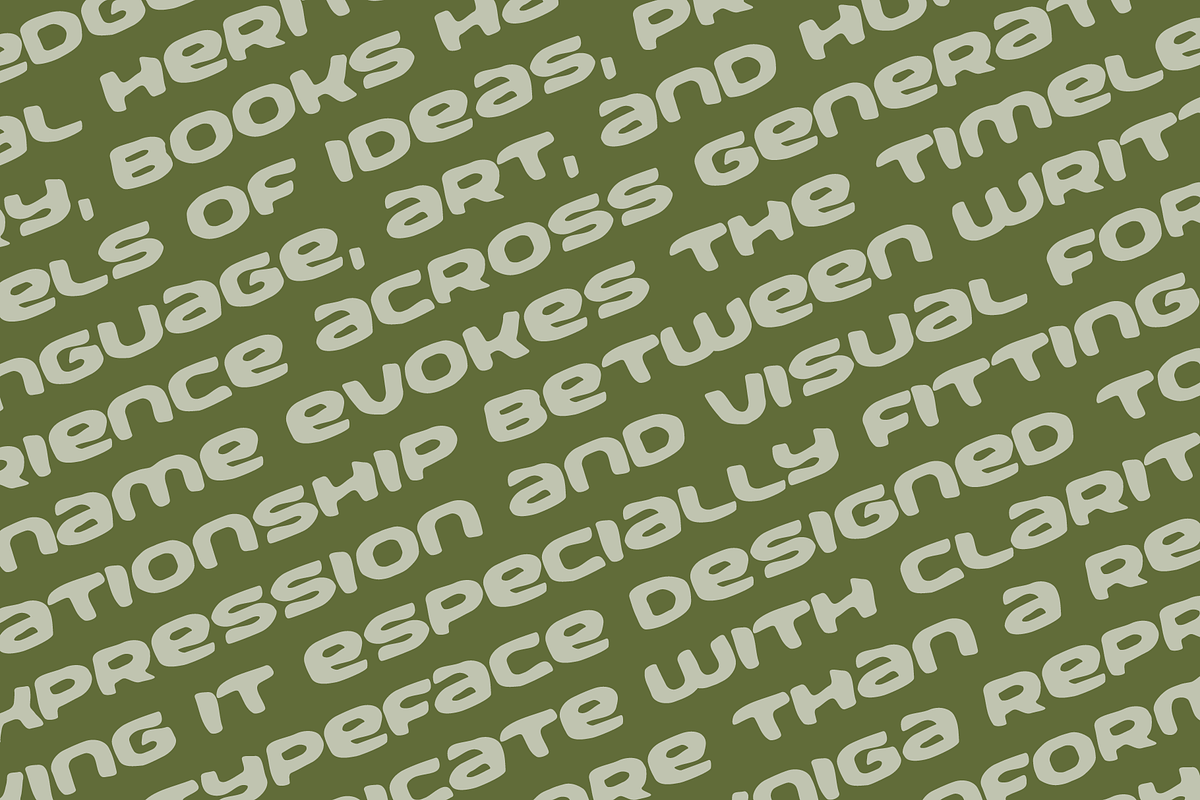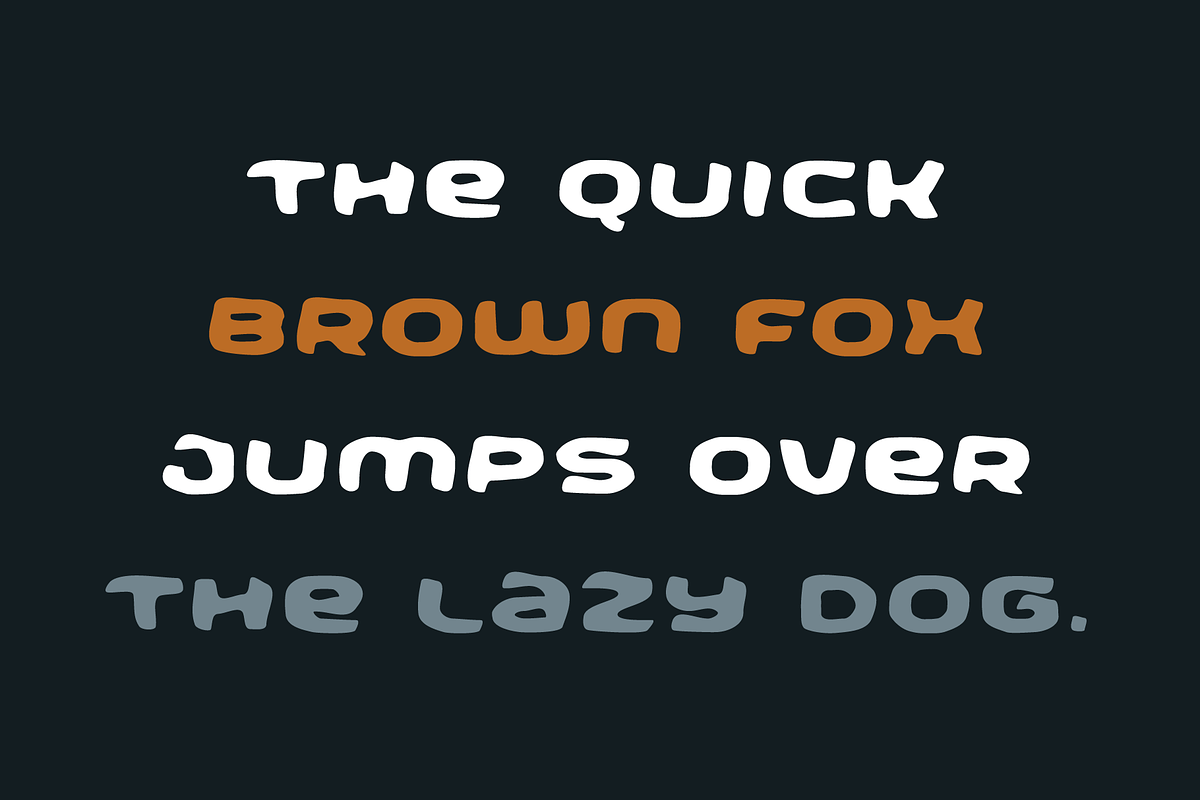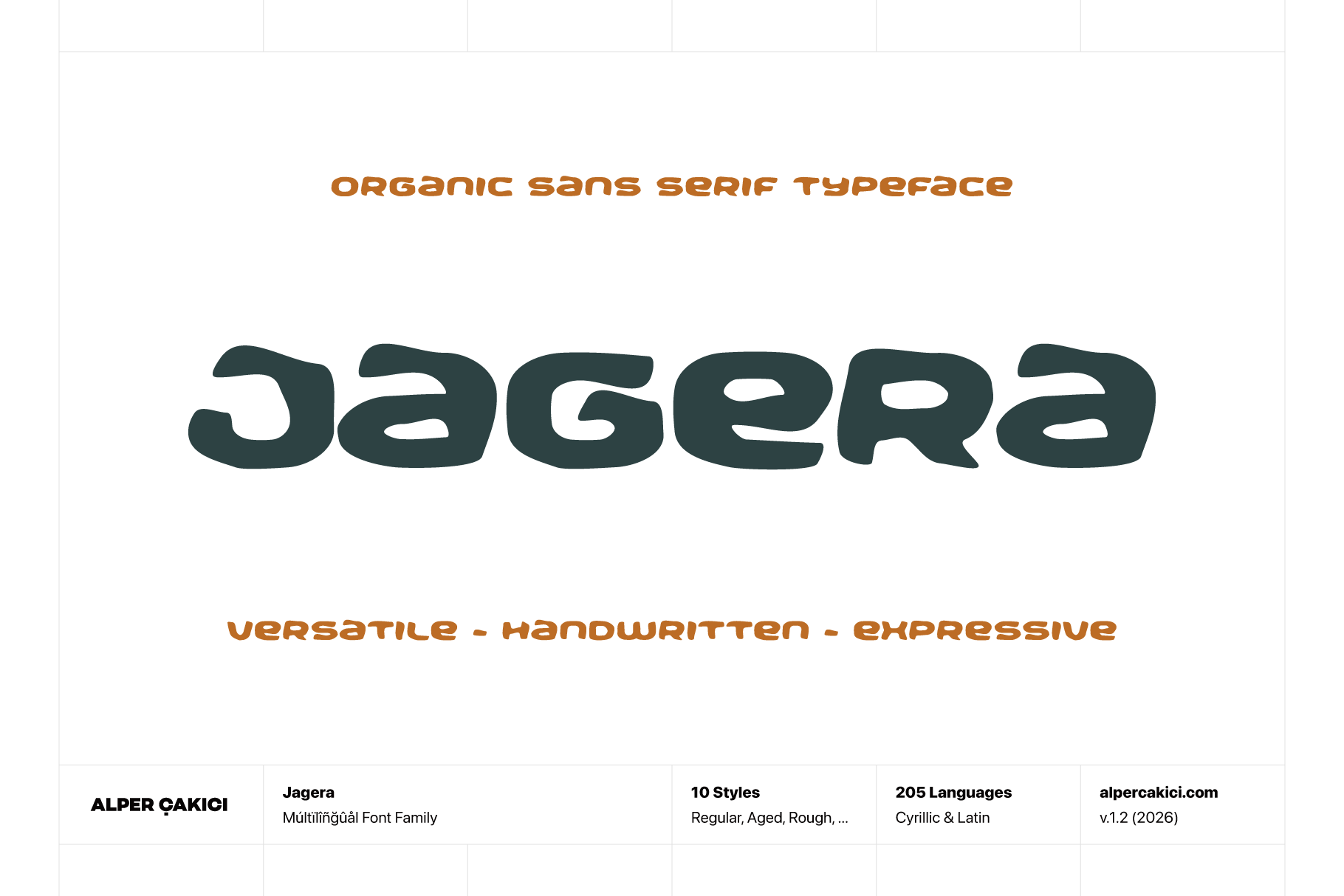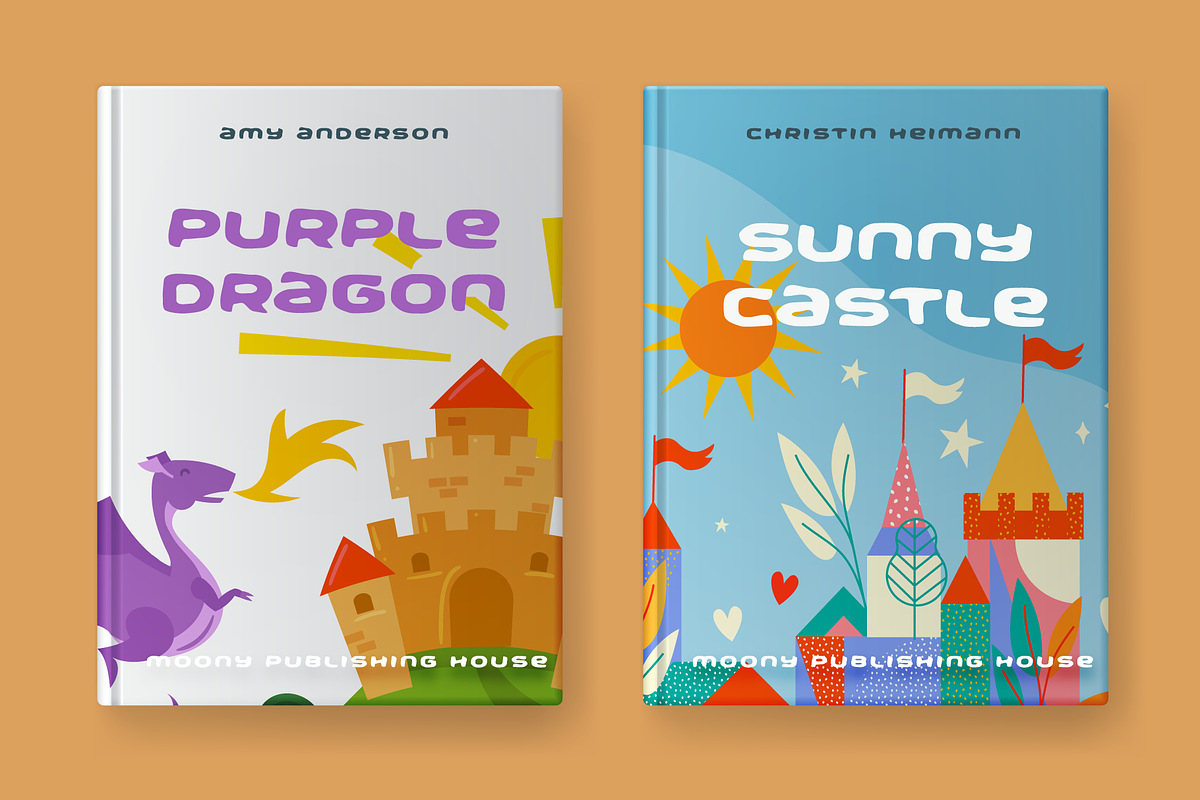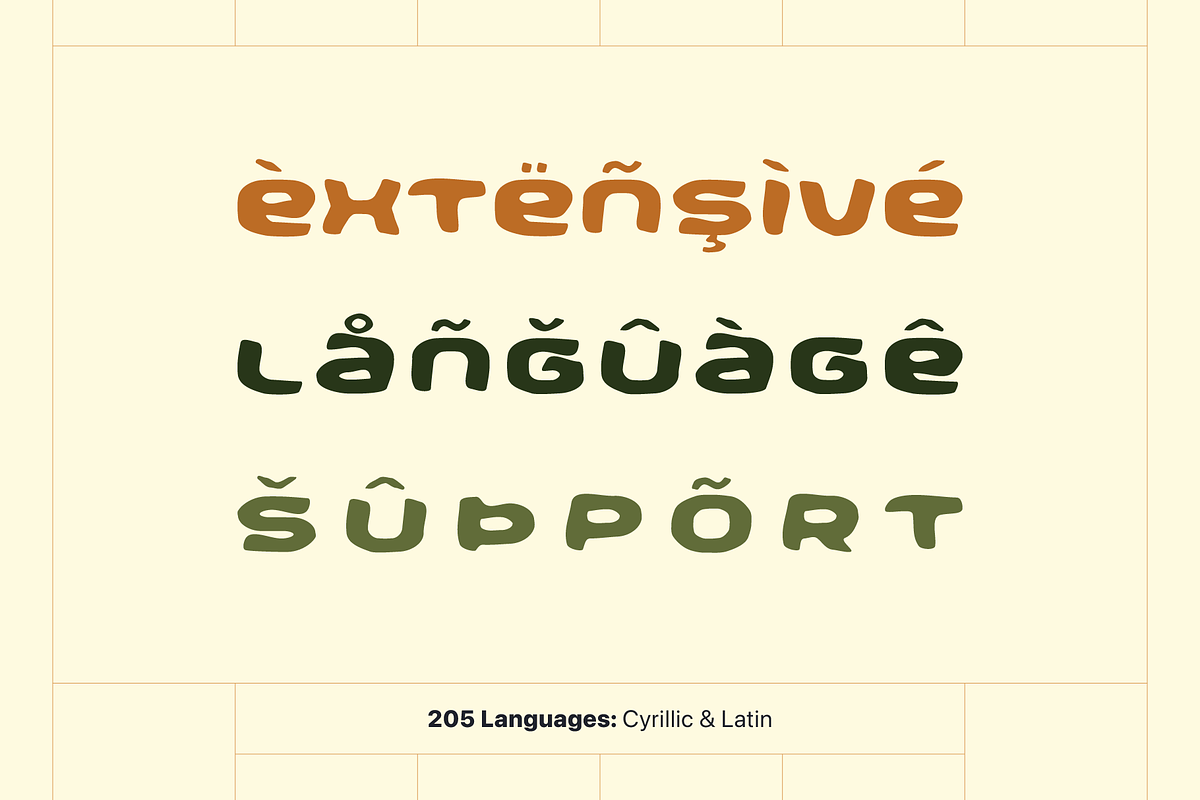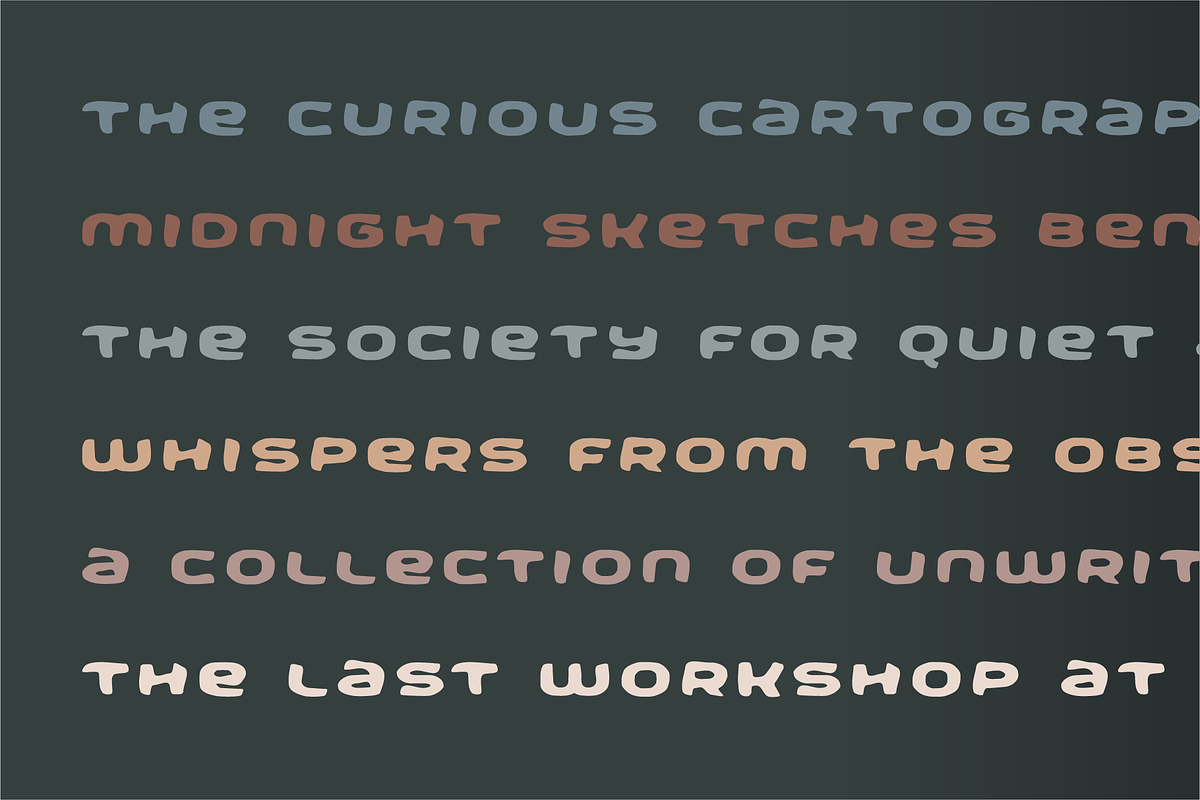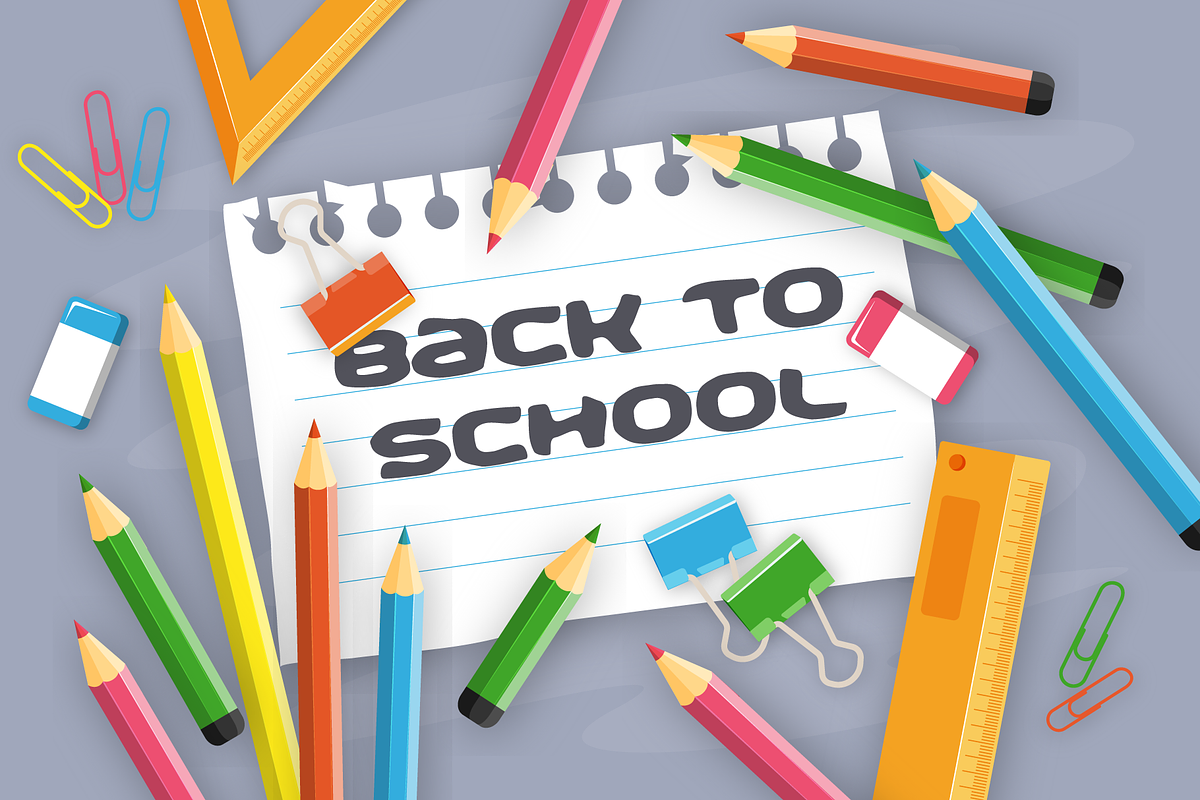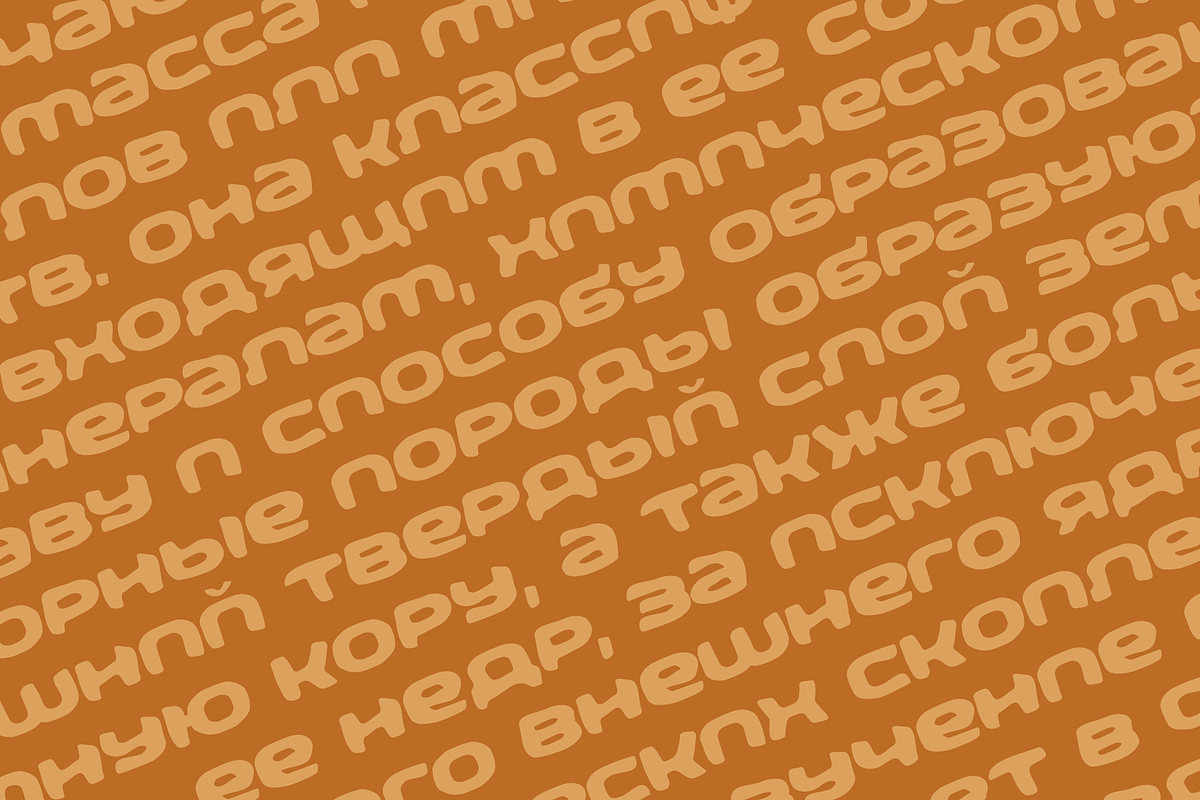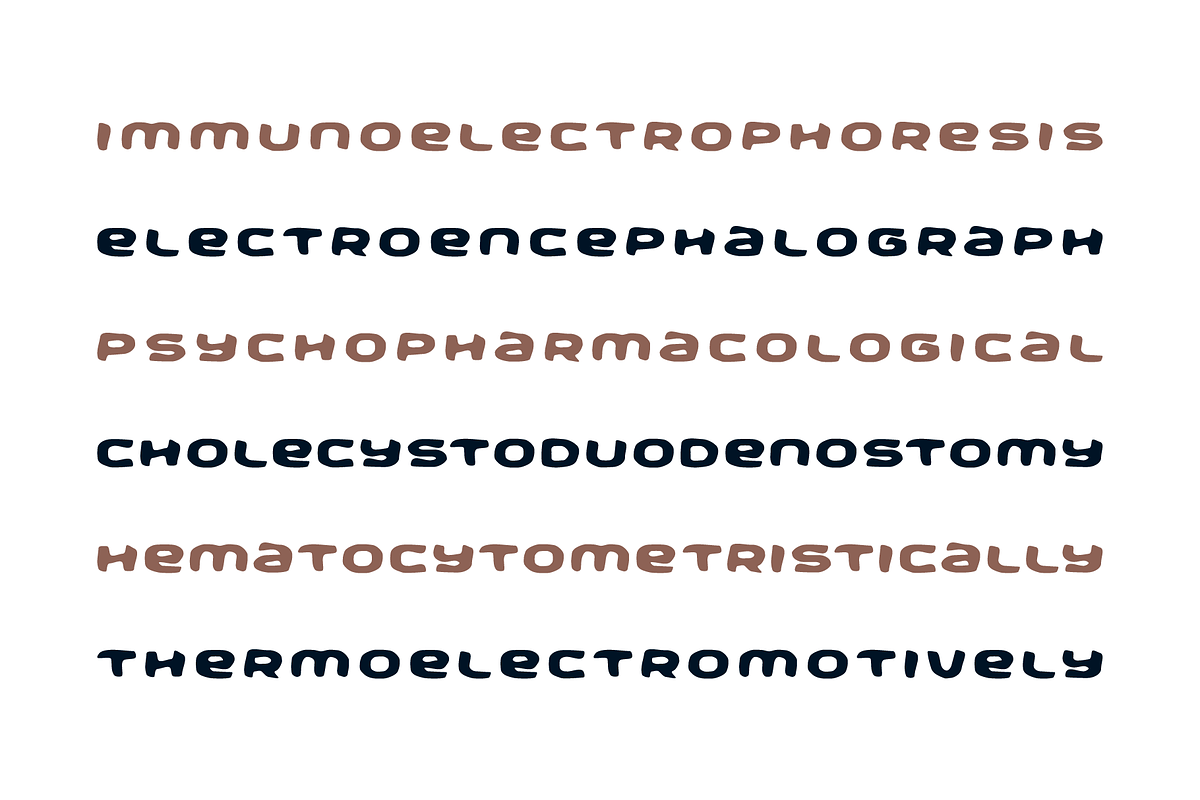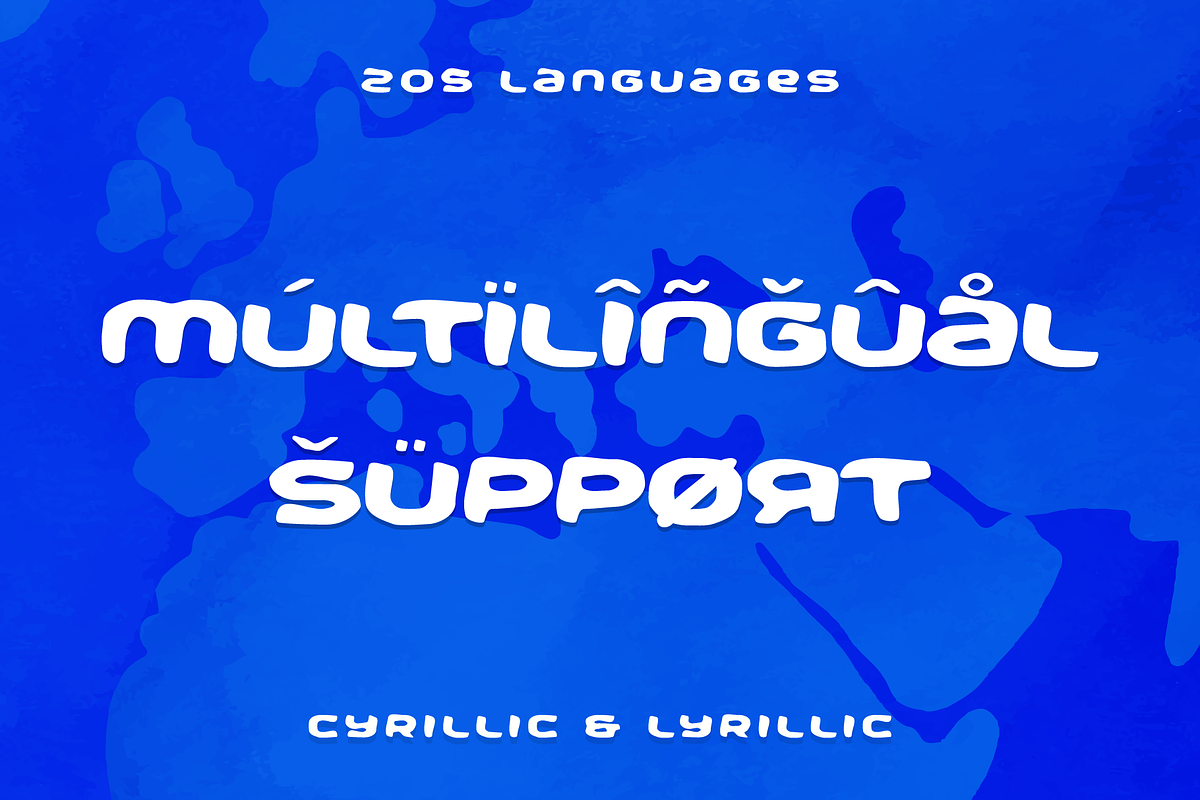
Jagera - Handwritten Typeface
Jagera is a rugged, expressive display typeface built around a strong handmade character, distressed textures, and unconventional visual details. Its bold personality combines the structure of a contemporary display face with aged, hazy, and rough treatments, making it particularly effective when typography needs to feel raw, atmospheric, and distinctive.
Designed primarily for headlines, titles, posters, branding, packaging, editorial graphics, album artwork, and other display applications, Jagera has a naturally attention-grabbing presence. Its Regular style provides the core design, while the additional variations allow designers to move between clean display typography and more weathered, experimental treatments.
The family contains 10 styles, including Regular, Italic, Aged, Aged Italic, Hazy, Hazy Italic, Outline, Outline Italic, Rough, and Rough Italic. This combination provides several different visual directions within one cohesive family. The Aged styles introduce a worn and vintage character, Hazy styles create a softer and atmospheric impression, while Rough styles emphasize a more distressed and handmade appearance. Outline versions offer a lighter, more graphic alternative for layered compositions, posters, logos, and decorative typography.
Jagera supports Latin and Cyrillic scripts across 205 languages, making it suitable for multilingual design projects and international branding. Its 547 glyphs provide extensive character coverage while maintaining the distinctive personality of the typeface.
The family includes several professional OpenType features. Localized forms automatically adapt selected characters for languages including Azerbaijani, Crimean Tatar, Kazakh, Tatar, Turkish, Romanian, Moldovan, Marshallese, and Dutch. Cyrillic localized forms are also provided for Bulgarian and Serbian typography. These substitutions help maintain appropriate character forms across supported languages without requiring manual intervention.
Jagera also includes superior and inferior figures, allowing numbers to be positioned for compact typographic compositions, as well as fraction support for professional numerical typography. The ordinal feature provides a dedicated Nº form, while character-composition features improve the behavior of accented letters and combining marks.
With its combination of rough textures, aged treatments, hazy effects, outline styles, and italic variations, Jagera can shift between raw vintage typography and contemporary experimental display design. It works particularly well at larger sizes, where the individual character details and surface treatments can become an integral part of the visual composition.
Jagera is suitable for poster design, streetwear graphics, music artwork, alternative branding, packaging, editorial design, fashion graphics, event identities, advertising, merchandise, social media artwork, headlines, titles, and display typography.
Designed for both screen and print, Jagera can be used across digital campaigns, websites, social graphics, printed posters, packaging, magazines, apparel, signage, and large-format applications.
10 styles
Regular & Italic
Aged & Aged Italic
Hazy & Hazy Italic
Outline & Outline Italic
Rough & Rough Italic
547 glyphs
Latin & Cyrillic
205 languages
Multilingual localized forms
Bulgarian Cyrillic localization
Serbian Cyrillic localization
Superior figures
Inferior figures
Fractions
Ordinals
Screen & print optimized
Display-focused design
Ideal for posters, branding, packaging, editorial and headlines